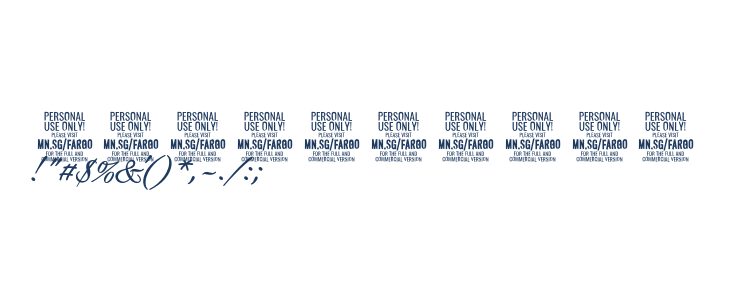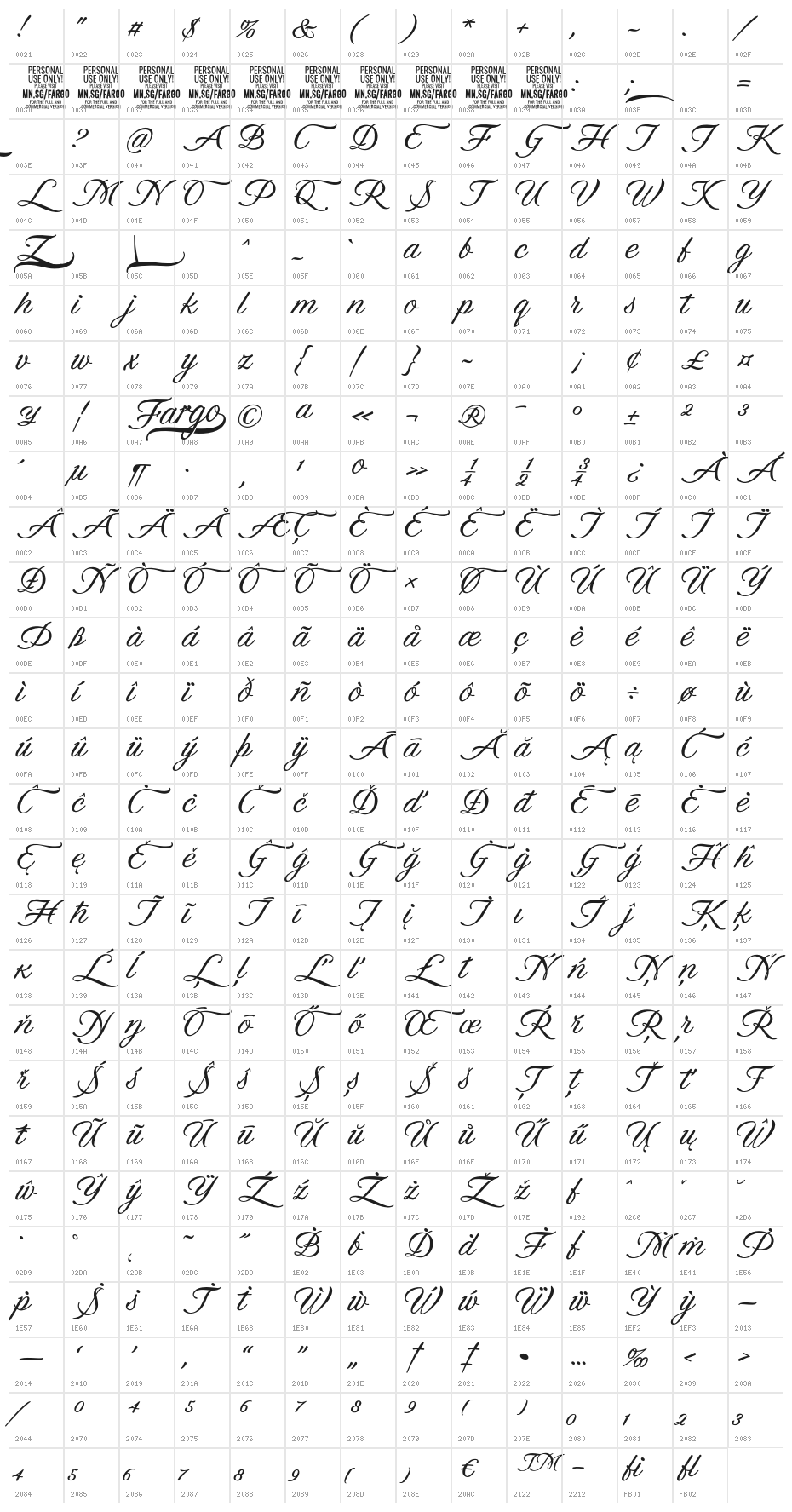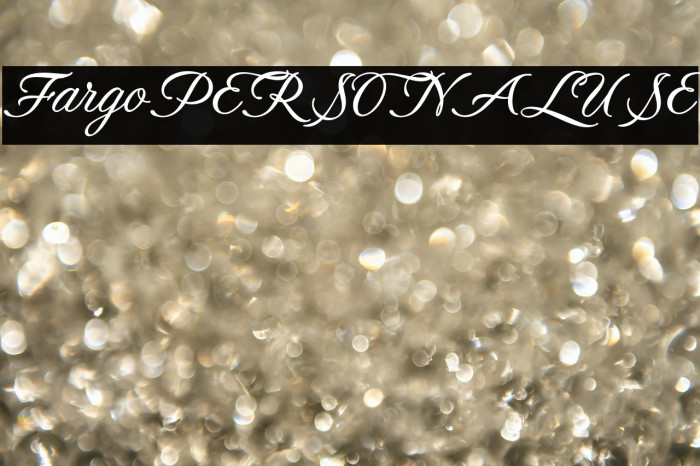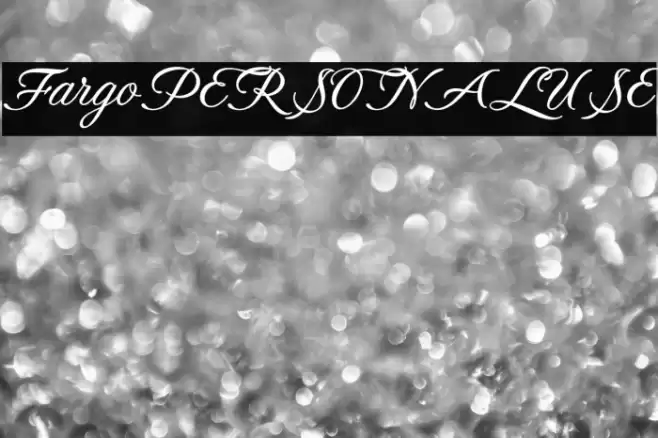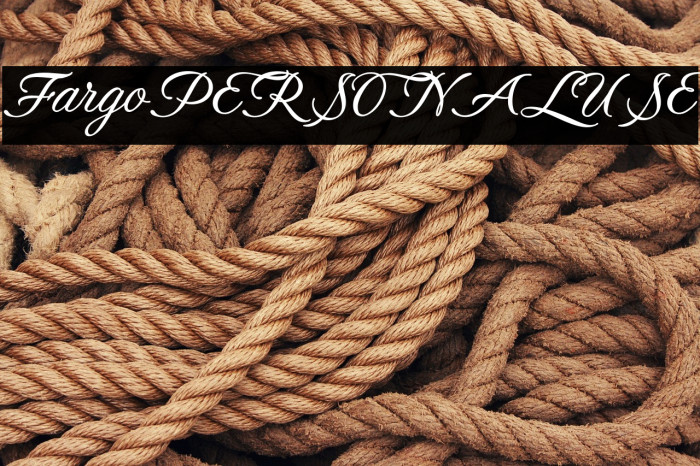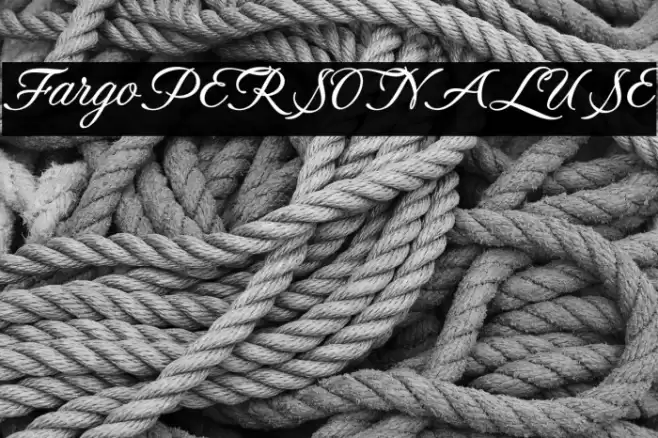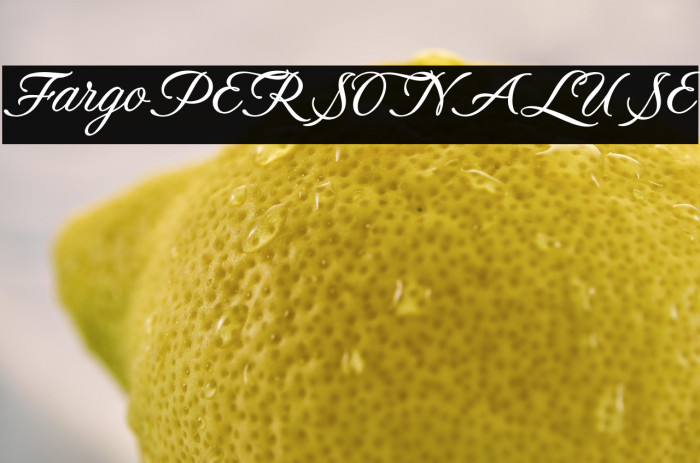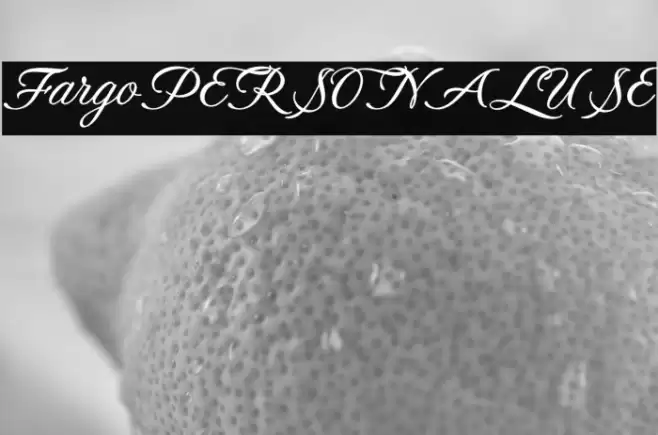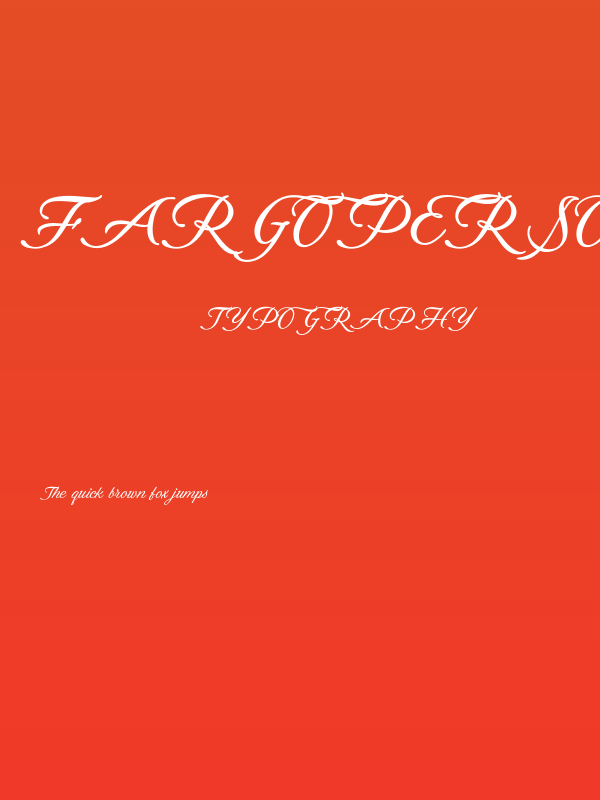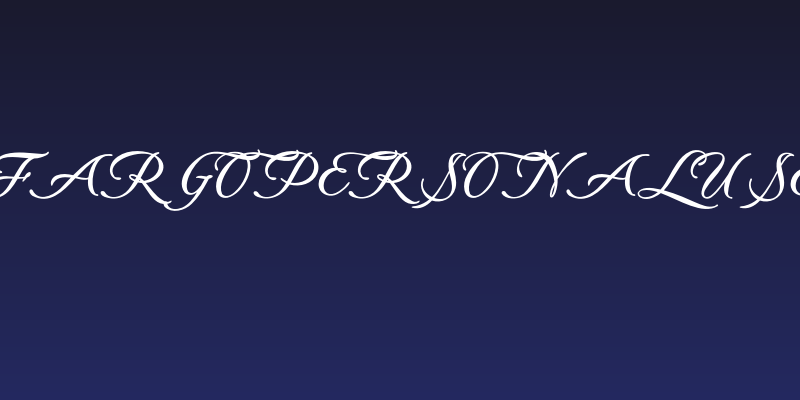
FargoPERSONALUSE Font
FargoPERSONALUSE Description
This font features an elegant, flowing script style with a classic and sophisticated appearance. The uppercase letters are ornate, with intricate loops and flourishes, giving them a decorative touch. The lowercase letters maintain a smooth and connected cursive form, enhancing readability while retaining a stylish flair. The numerals and special characters are designed to match the overall aesthetic, providing a cohesive look across all elements. This font exudes a sense of elegance and refinement, making it suitable for formal and decorative applications.
| Proposed Projects | Ideal for wedding invitations, elegant branding, greeting cards, and high-end product packaging. |